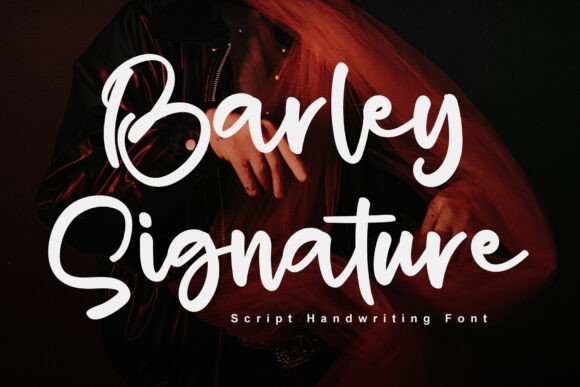
The Simple Charm of Handwritten Fonts
Have you ever been stuck on a design project, searching for the perfect font to convey your message? I know I have. It’s that moment of frustration when you scroll through endless options, only to find that none of them quite fit the tone you’re aiming for. But then, like a breath of fresh air, you stumble upon a font that speaks to you – its simplicity, its elegance, its unique personality.
Enter the Barley Signature Font, a beautiful example of a handwritten font that embodies the perfect blend of simplicity and readability. With its clean lines and unadorned letterforms, this font offers a versatile and practical option for a wide range of design projects, from branding to web design. As a designer, you’ll appreciate the value of having a reliable font like Barley Signature at your disposal.
Barley Signature Font Key Features
- Unique Characteristics: Elegant, handwritten script with subtle flair and connection between letters, ideal for creative and artistic applications
- Font Style: Casual, Signature, Handwritten
Barley Signature Font Review
Overall, I think the Barley Signature Font has a lot going for it. ✨ One of the standout features is its versatility – it’s equally at home in modern and vintage designs. The font’s elegant, cursive script makes it perfect for adding a touch of sophistication to any project. ✨ I also appreciate the wide range of language support, making it a great choice for international projects. ✨
That being said, there are a few limitations to consider. ⚠️ The font’s script nature can make it difficult to read in certain contexts, such as in small sizes or in situations where clarity is paramount. ⚠️ Additionally, the font’s ornate details can sometimes feel overwhelming, making it difficult to achieve a clean, minimalist look. ⚠️
In terms of overall impression, I think the Barley Signature Font is a solid choice for designers who want to add a touch of elegance and sophistication to their projects. It’s not a font that’s going to be suitable for every project, but when used thoughtfully, it can be a real showstopper.
- Versatile font suitable for modern and vintage designs
- Elegant, cursive script
- Wide range of language support
- Ornate details can be overwhelming in certain contexts
- Script nature can make it difficult to read in small sizes
Barley Signature Font: A Practical Application Guide
Tips for Getting the Most Out of the Barley Signature Font
Experiment with different font sizes and colors to create a unique look. Use the font in combination with other design elements, such as images and shapes, to create a visually appealing design.
The Barley Signature Font is perfect for:
- Creating a professional logo or brand identity
- Designing a wedding invitation or party invitation
- Creating a business card or letterhead